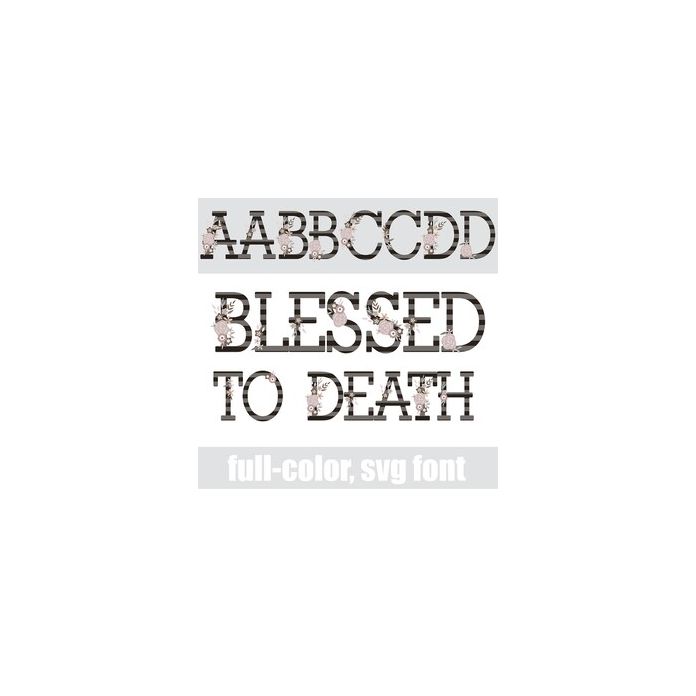
This full-color serif font features stripes and black florals for a pretty Halloween font. There is an alt case w/ additional colors you can access through your system or Silhouette's glyph map.